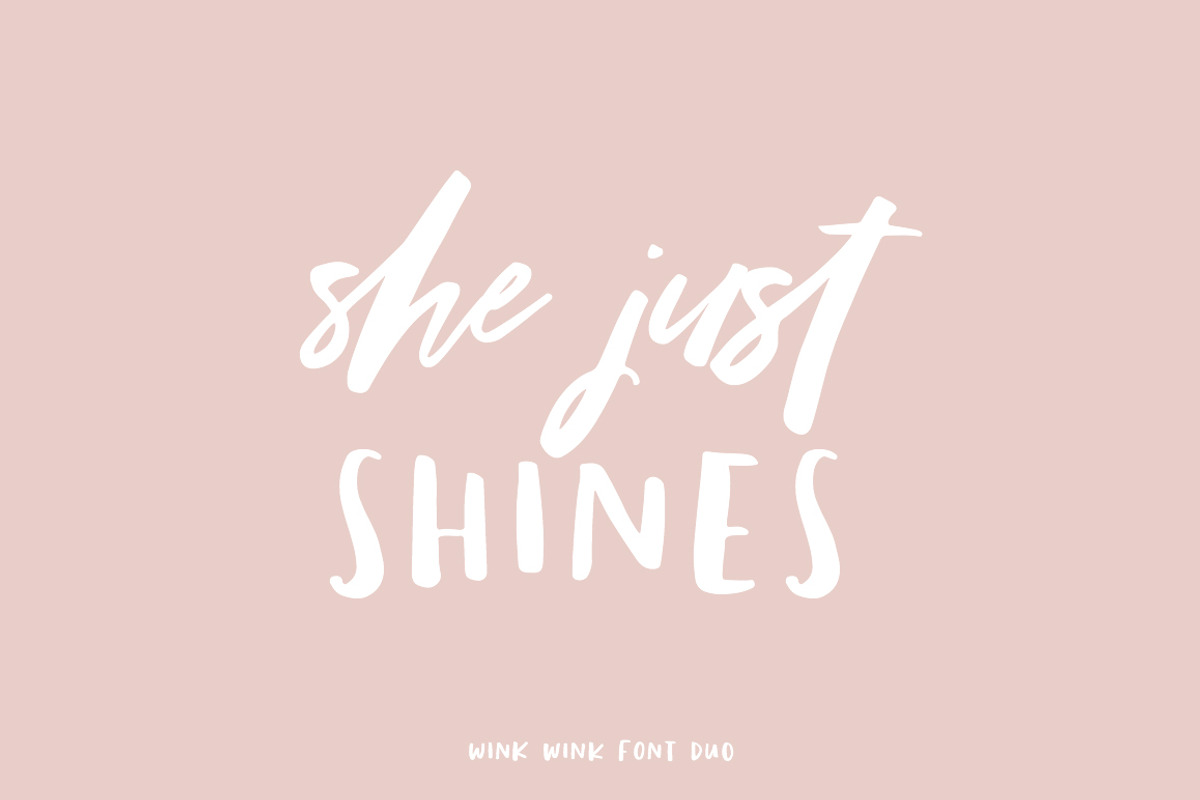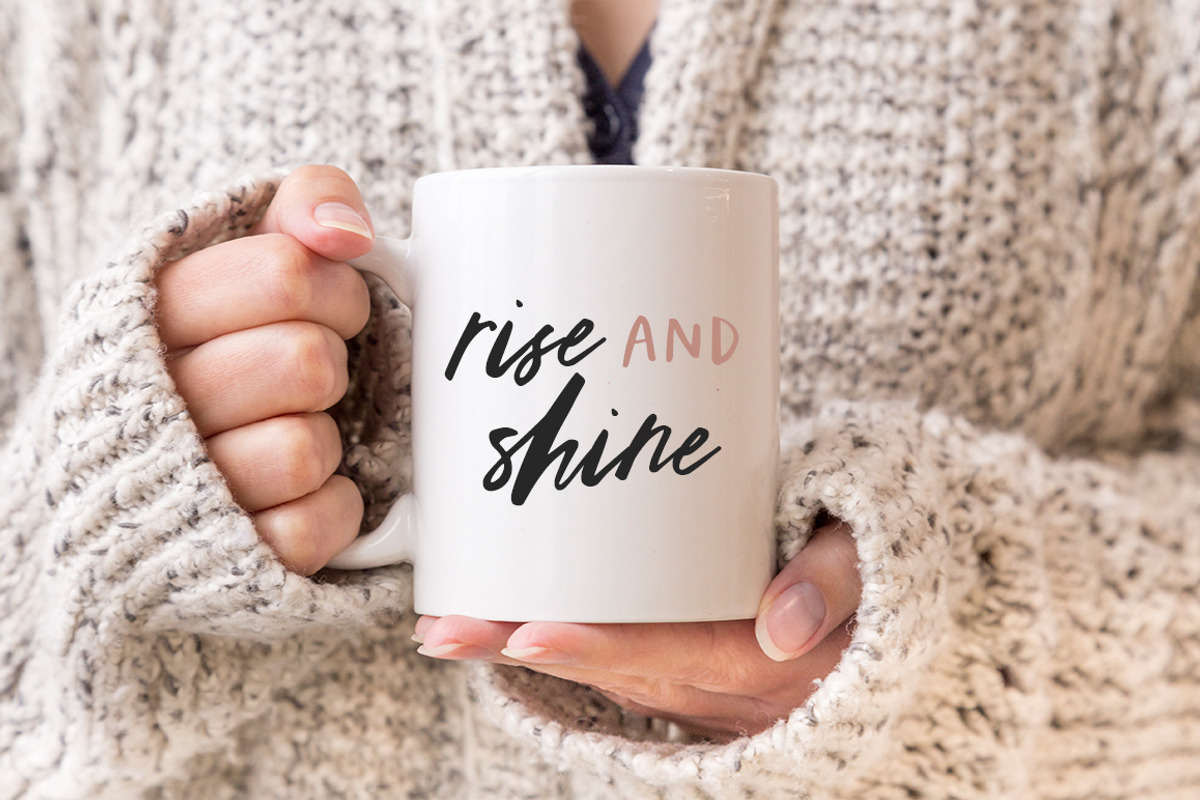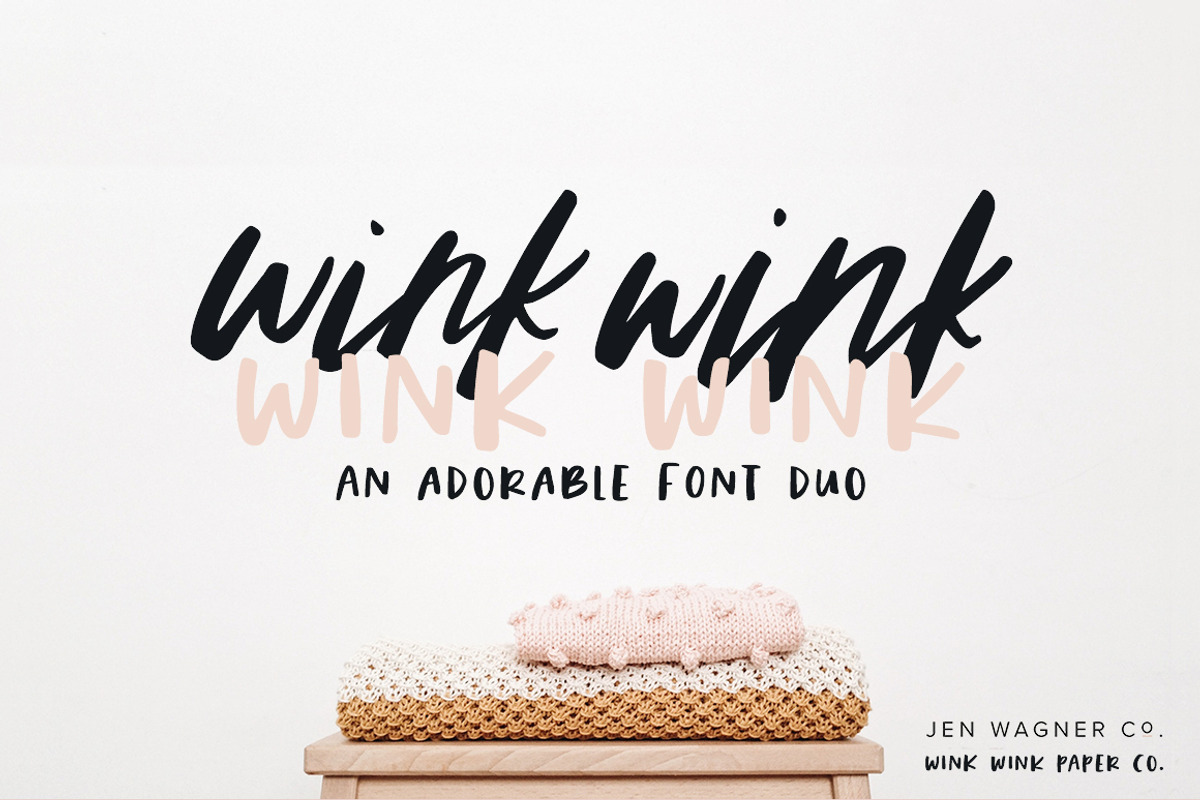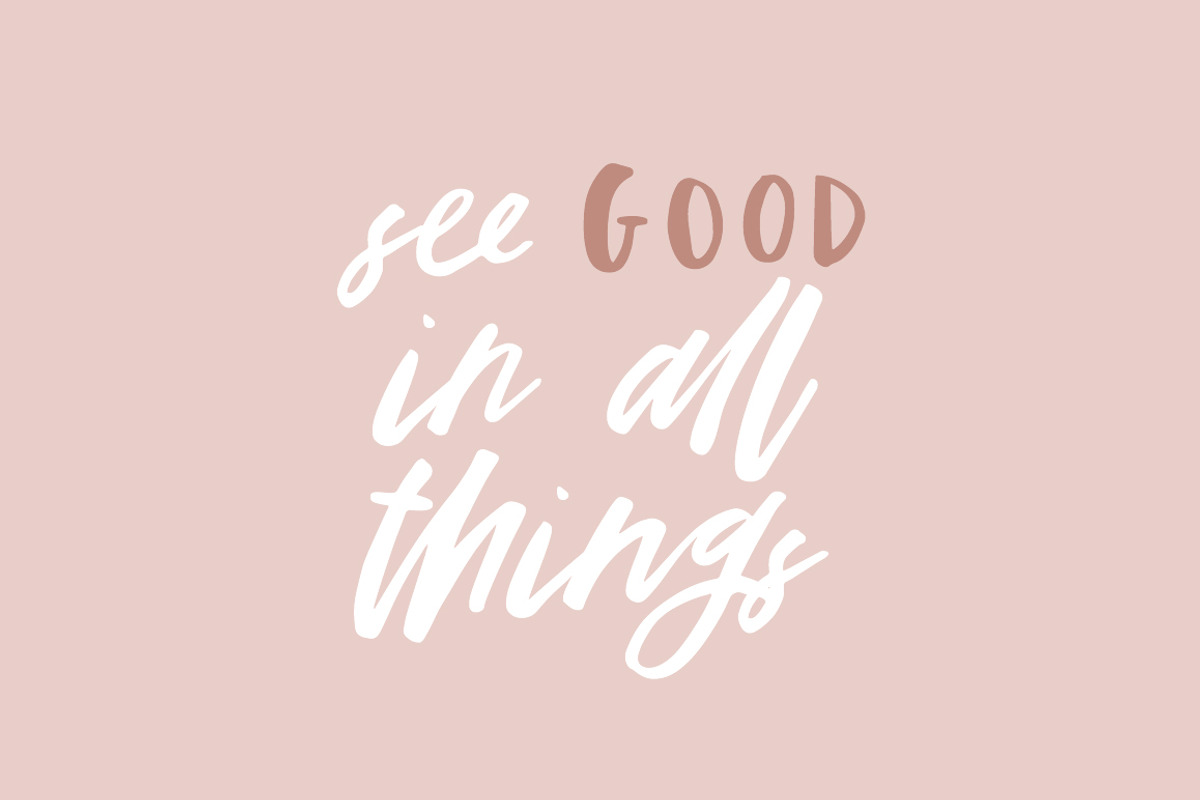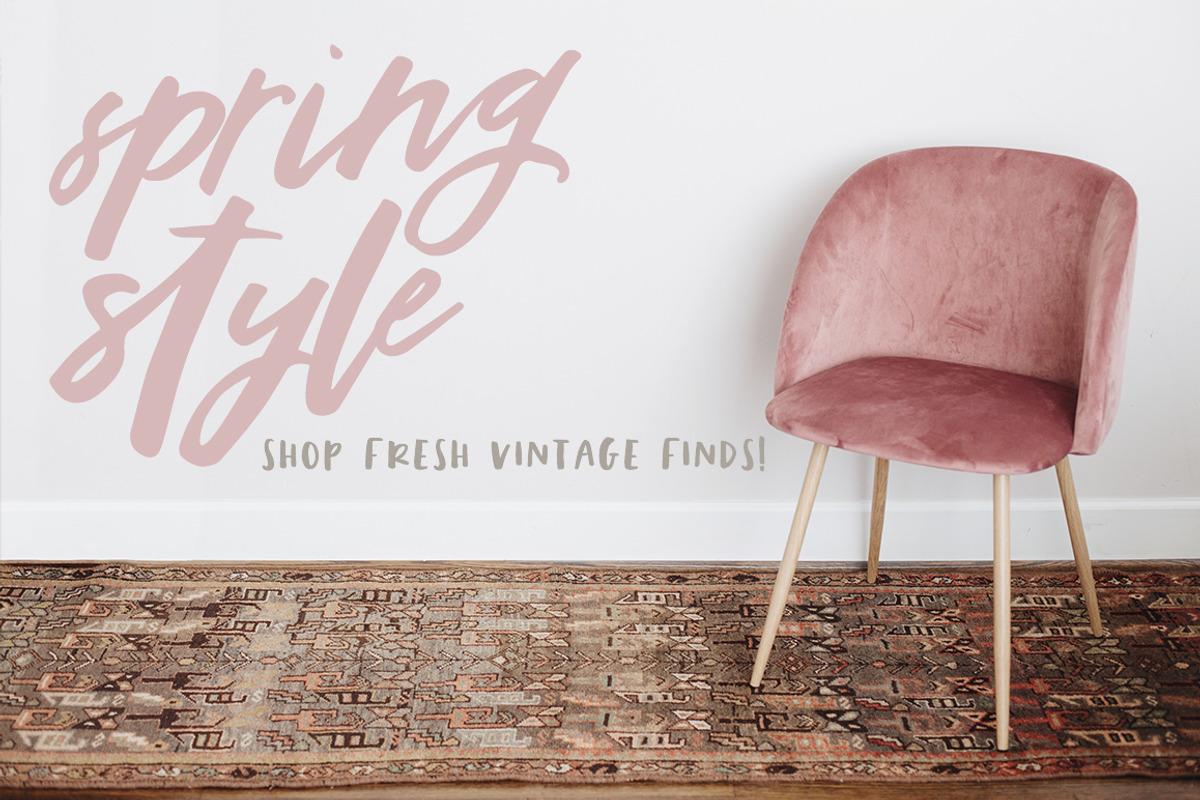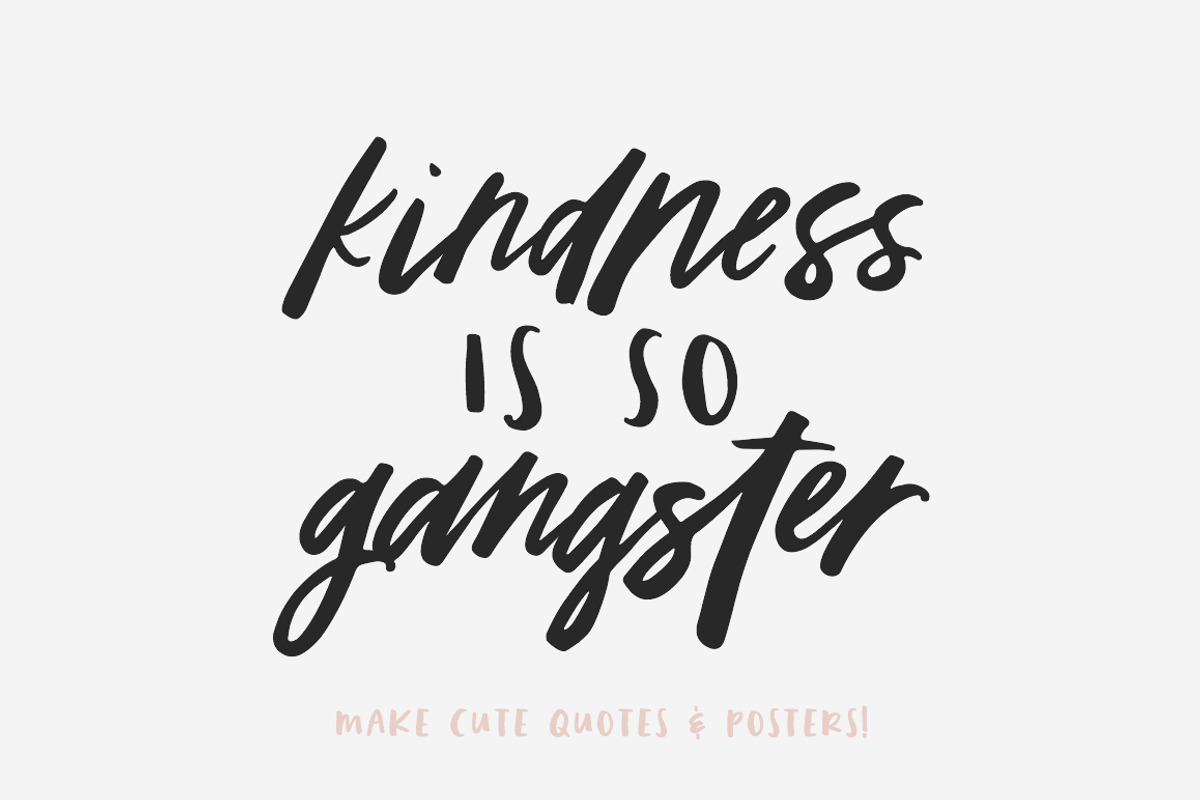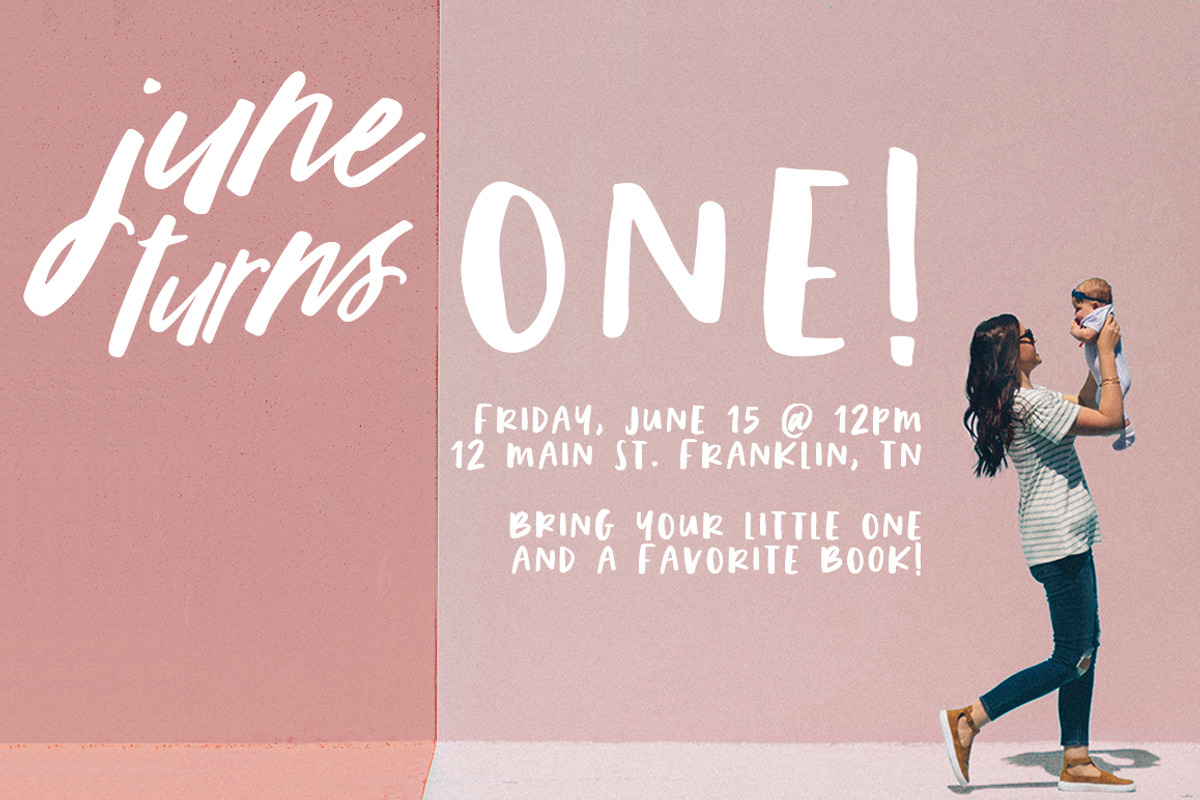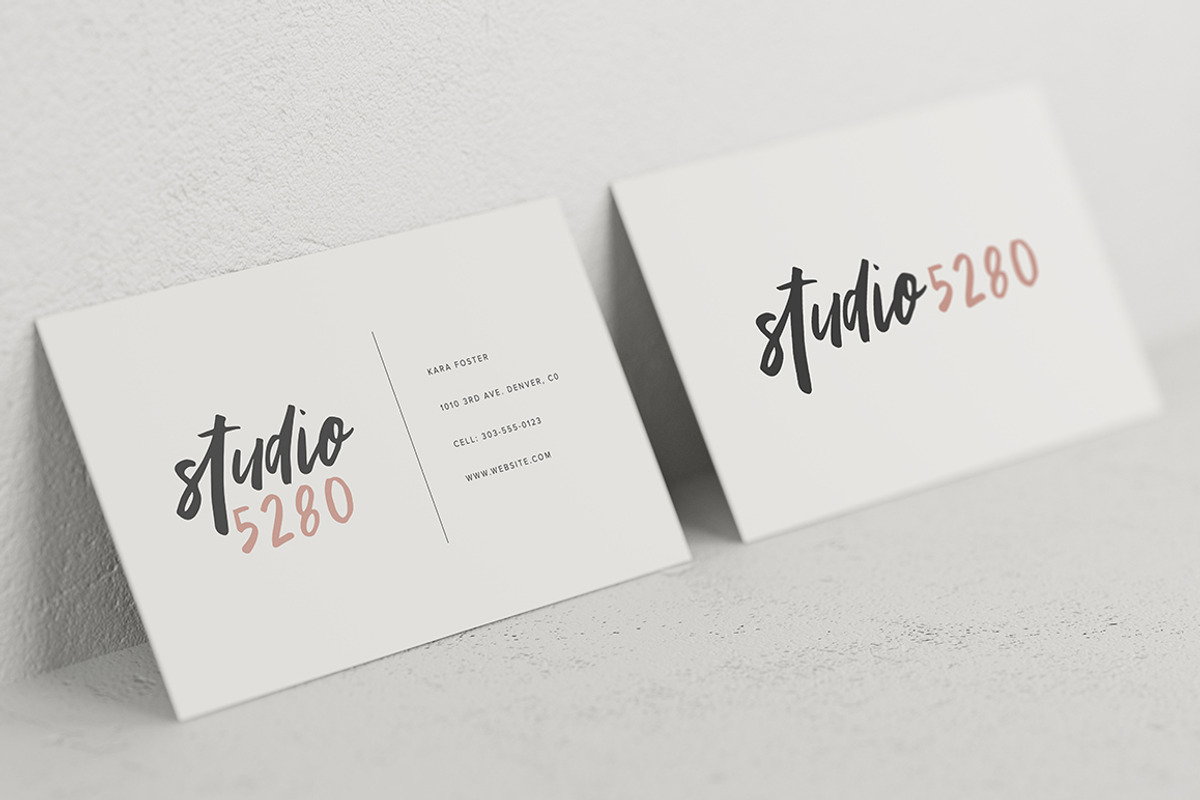
Wink Wink Font Duo
Wink Wink is a super fun font duo collaboration with Wink Wink Paper Co.! (
This easy-to-use font set is absolutely perfect for logos, quotes, products, and more. With 64 ligatures, alternates for each letter, and foreign language support, Wink Wink is perfect for adding a hand-written look to any project.
Alternates via Glyphs panel
Non-English Characters